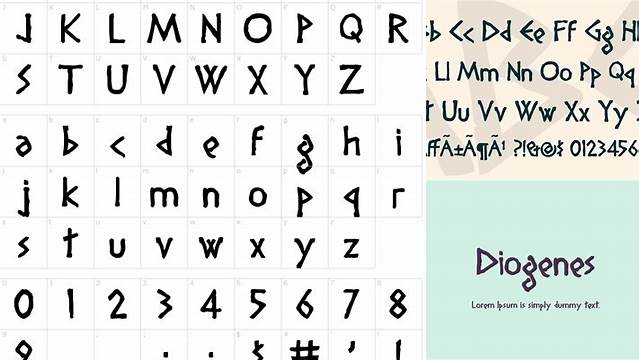
Diogenes Font: Free Download & Design Tips
Hey guys! Are you on the hunt for a cool, decorative font that'll make your designs pop? Well, look no further, because we're diving headfirst into the world of the Diogenes Decorative Font, and guess what? It's available for a free download! This font isn't just your average typeface; it's packed with personality, style, and a whole lot of creative potential. Whether you're a seasoned graphic designer or just starting your design journey, the Diogenes font could be the secret ingredient you've been searching for to elevate your projects. In this article, we'll explore everything you need to know about the Diogenes font, where to snag a free download, and how you can use it to unleash your inner creative genius. So, buckle up and get ready to get inspired!
Unveiling the Diogenes Font: What Makes It Special?
So, what's the deal with the Diogenes Decorative Font? What makes it stand out from the crowd of other fonts vying for your attention? First and foremost, the Diogenes font is all about making a statement. It's designed with a unique aesthetic that's perfect for projects where you want to grab attention and leave a lasting impression. It’s a display font, meaning it’s best used for headlines, titles, and short bursts of text, rather than large blocks of body text. The Diogenes font brings a touch of artistry to your designs, transforming plain text into eye-catching visuals. This font has a distinctive character that sets it apart, making it ideal for projects where you want to convey creativity and personality. Think about it: a well-chosen font can instantly set the tone for your entire design. The Diogenes font offers a versatile range of styles that can be adapted to various design projects. Whether you're aiming for a vintage feel, a modern look, or something completely out of the box, this font has got you covered. It’s the kind of font that can transform a simple poster into something that people will want to hang on their walls or a website into something that grabs attention immediately. The Diogenes font is more than just letters and characters; it's a tool that lets you express your creativity and make your designs truly unique. This font can work wonders in areas such as logo design, branding, and social media graphics. From invitations and greeting cards to posters and website headers, this font is your secret weapon. The Diogenes font has a way of adding a touch of elegance and sophistication, helping to create designs that are not only visually appealing but also memorable. The style and design of this font are very unique, it’s great for creating a strong visual identity. Its visual characteristics can help you create a lasting impression, whether you’re designing a poster or working on your personal blog. Its flexibility makes it suitable for a wide range of applications, making it a favorite among designers. The use of the Diogenes font can significantly improve the overall visual appeal of your work, making your designs stand out from the crowd. It can transform your ordinary text into something that really pops.
This font is perfect for adding a little something extra to your design. It has a certain charm, making it ideal for projects where you want to convey elegance or personality. Its adaptability makes it ideal for a variety of projects, so you will be able to transform all your ideas. This font provides you with the freedom to express your creative ideas and create designs that stand out. Its character will add a special touch to all your designs. With the Diogenes font, you will be able to add a layer of charm and sophistication to your work. It is important to remember that a good font can do wonders for your designs. The Diogenes font is your way to take your designs to the next level.